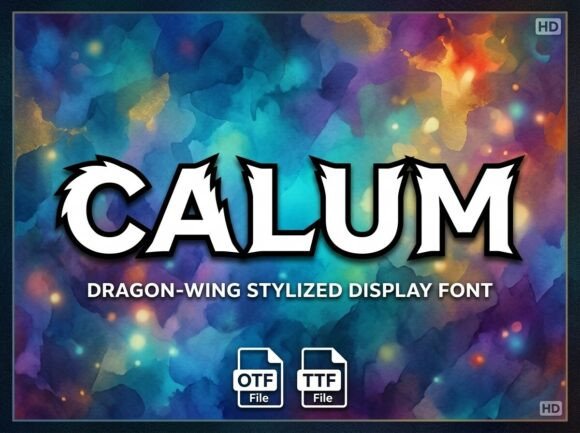
Calum: An Avant-Garde Font for Bold, Artistic Designs
More Than a Typeface: Defining Calum's Visual Identity
Calum isn't a font you choose when you want to play it safe. It's a deliberate, architectural decision. As an avant-garde decorative display font, its entire purpose is to command attention. The character set is all-caps, a choice that immediately sets a tone of authority and finality. Each letterform is a standalone piece of art, crafted with unique flourishes that give it a commanding visual personality. Think of it less as a tool for setting body text and more as a sculptural element you place within your layout.
The genius of Calum lies in its duality. It possesses a strong, almost rebellious artistic soul, yet it’s finished with a high-end polish. This isn't a gritty, distressed grunge font; it's a refined statement. This balance makes it incredibly versatile in unexpected ways. It feels equally at home on a luxury perfume box as it does splashed across a poster for an underground music event. For designers, entrepreneurs, and content creators, this means you can inject serious artistic credibility into a project without sacrificing a sense of professionalism.
Where Calum Truly Shines: Practical Applications
Understanding a font's personality is one thing; knowing exactly where to deploy it is another. Calum is a specialist, designed for high-impact moments where a message needs to be felt, not just read. Its all-caps structure and decorative nature mean it’s not suited for long paragraphs or fine print. Instead, it excels in roles where brevity and visual power are paramount.
For logo design and branding, Calum can become the cornerstone of a brand identity that refuses to be generic. A boutique hotel, an artisanal spirits company, a high-fashion label, or a cutting-edge design studio could use it to create a signature wordmark that is instantly recognizable and dripping with character. It communicates that the brand is confident, creative, and pays meticulous attention to detail.
In editorial and publishing design, this display font is perfect for magazine covers, chapter headings, or pull quotes. Imagine it on the cover of an architecture or art magazine—it immediately signals a modern, sophisticated publication. For bloggers and content creators, using Calum for key headlines on a website or in a digital report can break the monotony of standard web fonts, drawing the reader’s eye to the most important information and elevating the entire visual experience.
When it comes to packaging and poster design, Calum is a natural fit. Its ability to be the focal point makes it ideal for conceptual packaging for everything from gourmet coffee to cosmetic products. On posters and social media graphics, a few impactful words set in Calum can stop the scroll. It creates a visual hierarchy that guides the viewer, ensuring your core message—be it an event name, a product benefit, or a call to action—is seen first and remembered.
Integrating Calum: A Guide for Creators and Businesses
Choosing a premium font like Calum is an investment in your project's visual language. To ensure it delivers a return, a thoughtful approach is necessary. The first step is always evaluation. Does the project call for a bold, artistic statement? If your goal is to convey quiet, minimalist elegance, Calum might be too loud. If you want to project innovation, confidence, and a creative edge, it's an excellent choice. Look at existing brand assets and the target audience. Calum appeals to a demographic that appreciates artistry and isn't afraid of bold aesthetics.
One of the most critical skills in modern typography is font pairing. Because Calum has such a strong personality, it needs a partner that complements without competing. A clean, geometric sans serif font is often a perfect counterpart. Use the sans serif for body copy, subheadings, and supporting text. This creates a clear visual hierarchy, allowing Calum to handle the high-impact headlines while the sans serif ensures readability for longer content. A classic, elegant serif font can also work, creating a dynamic tension between the avant-garde and the traditional, perfect for a luxury brand with a disruptive edge. Avoid pairing it with other highly decorative, script font, or handwritten font styles, as this will create visual chaos.